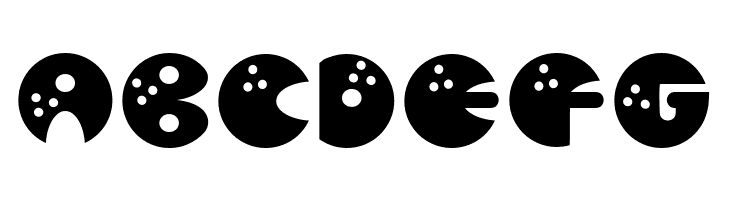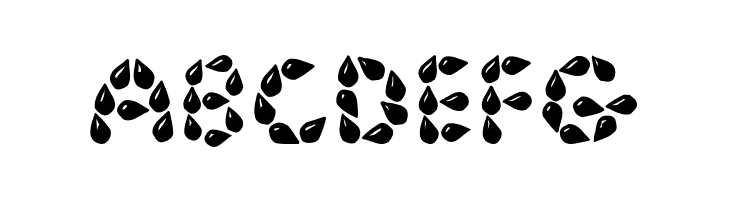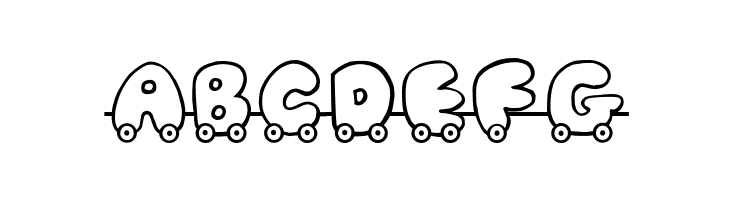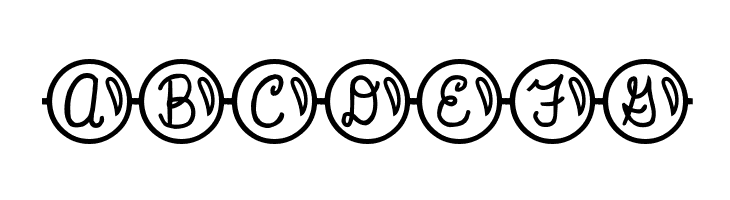
A playful, bowling ball-inspired decorative font with bold, rounded characters.
A decorative font with characters formed by seed-like shapes, offering a playful and organic look.
A bold, industrial font with uppercase letters in sawblade shapes.
A playful, marshmallow-inspired font with bold outlines and a whimsical style.
A playful font with letters resembling toy train cars, perfect for children's projects.
A playful, wavy font with noodle-like curves and a whimsical style.
An elegant, decorative font with uppercase letters encased in circular shapes.